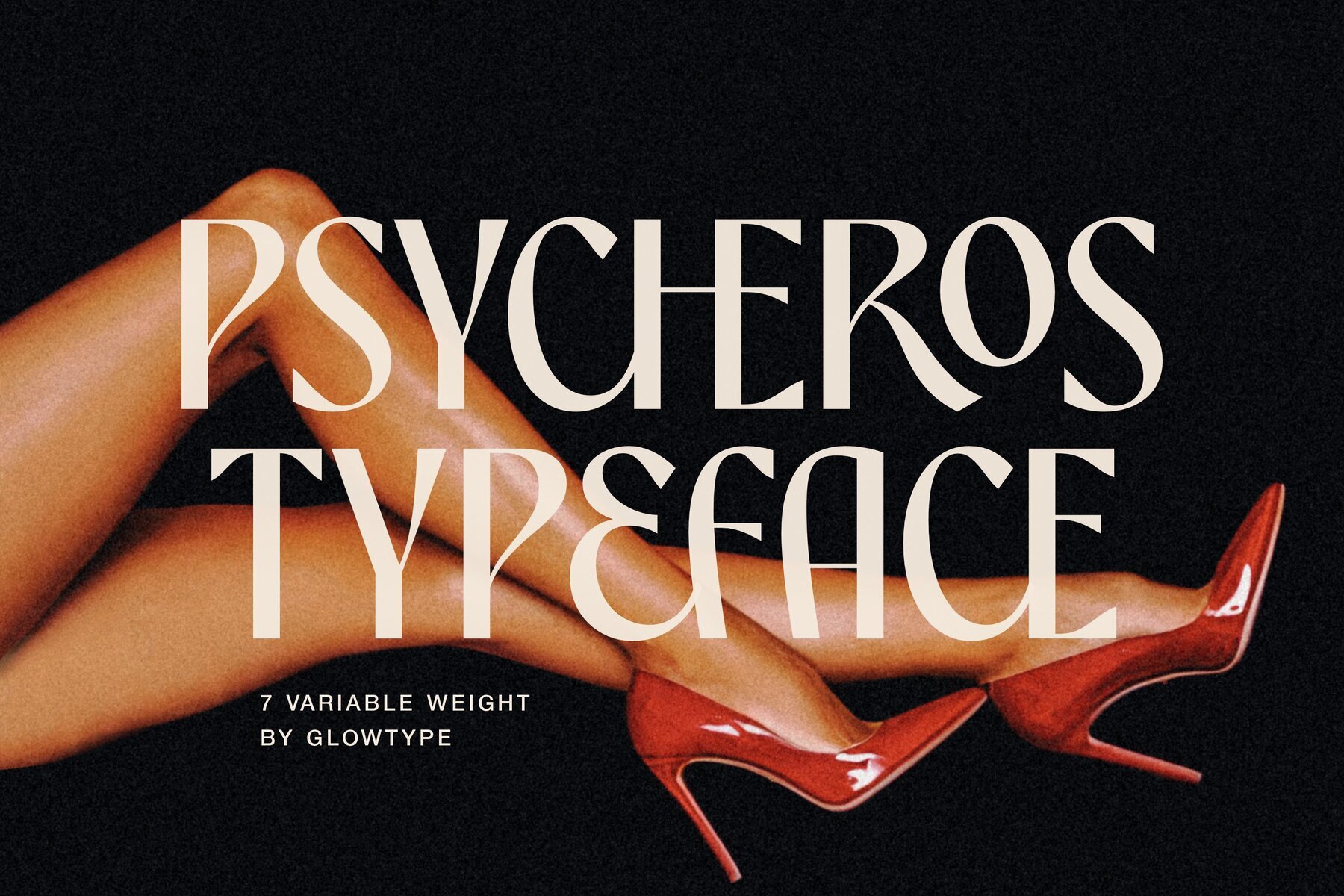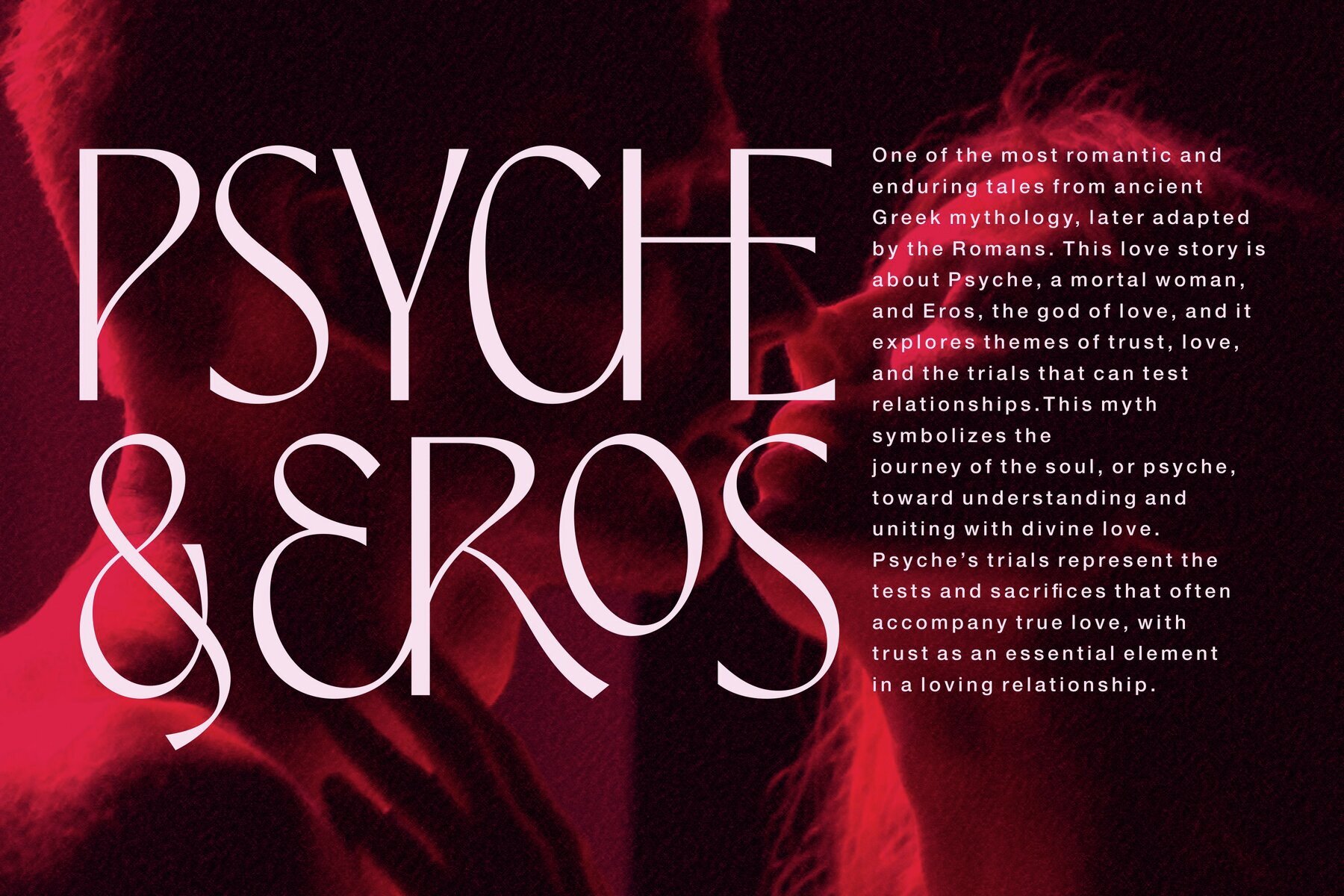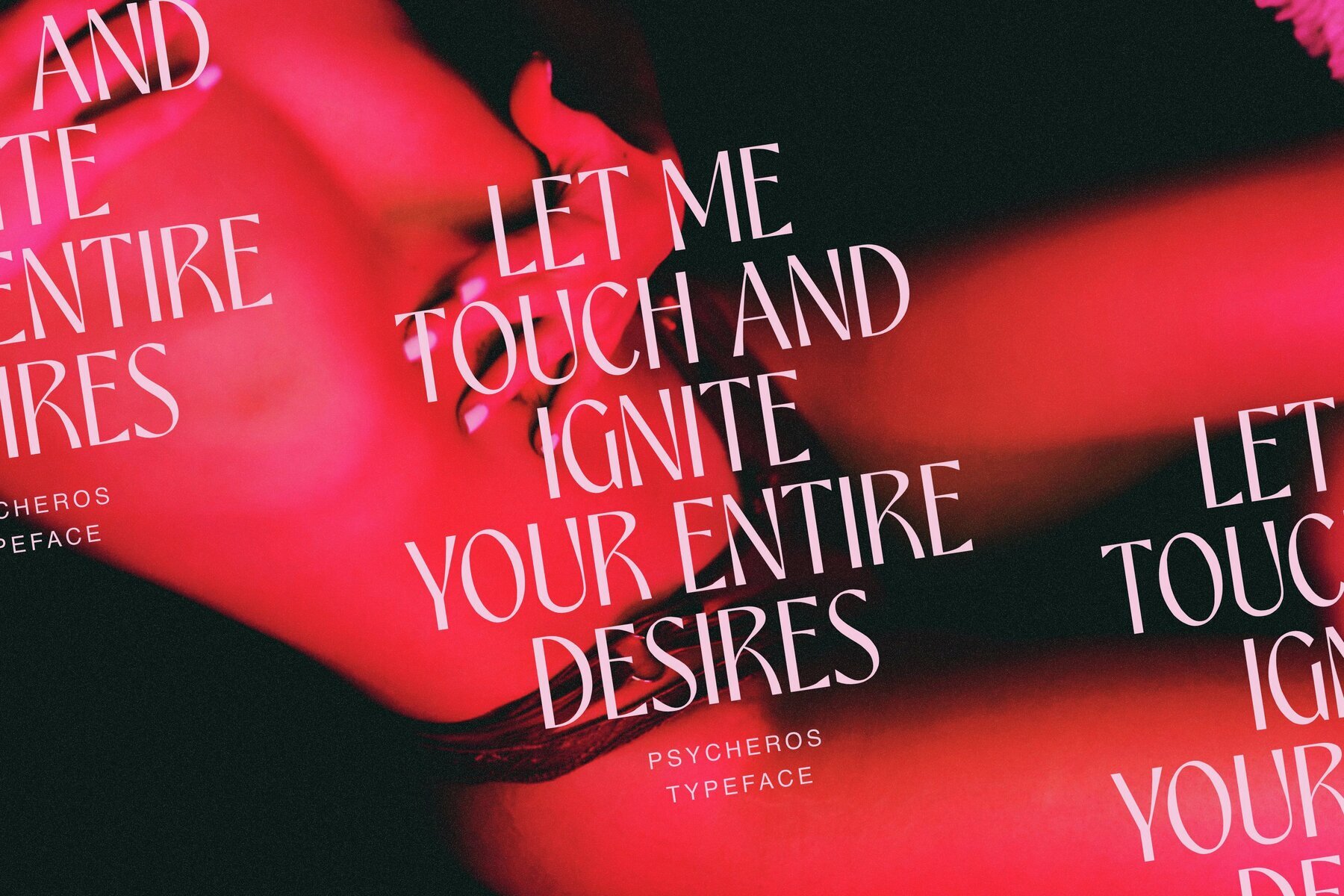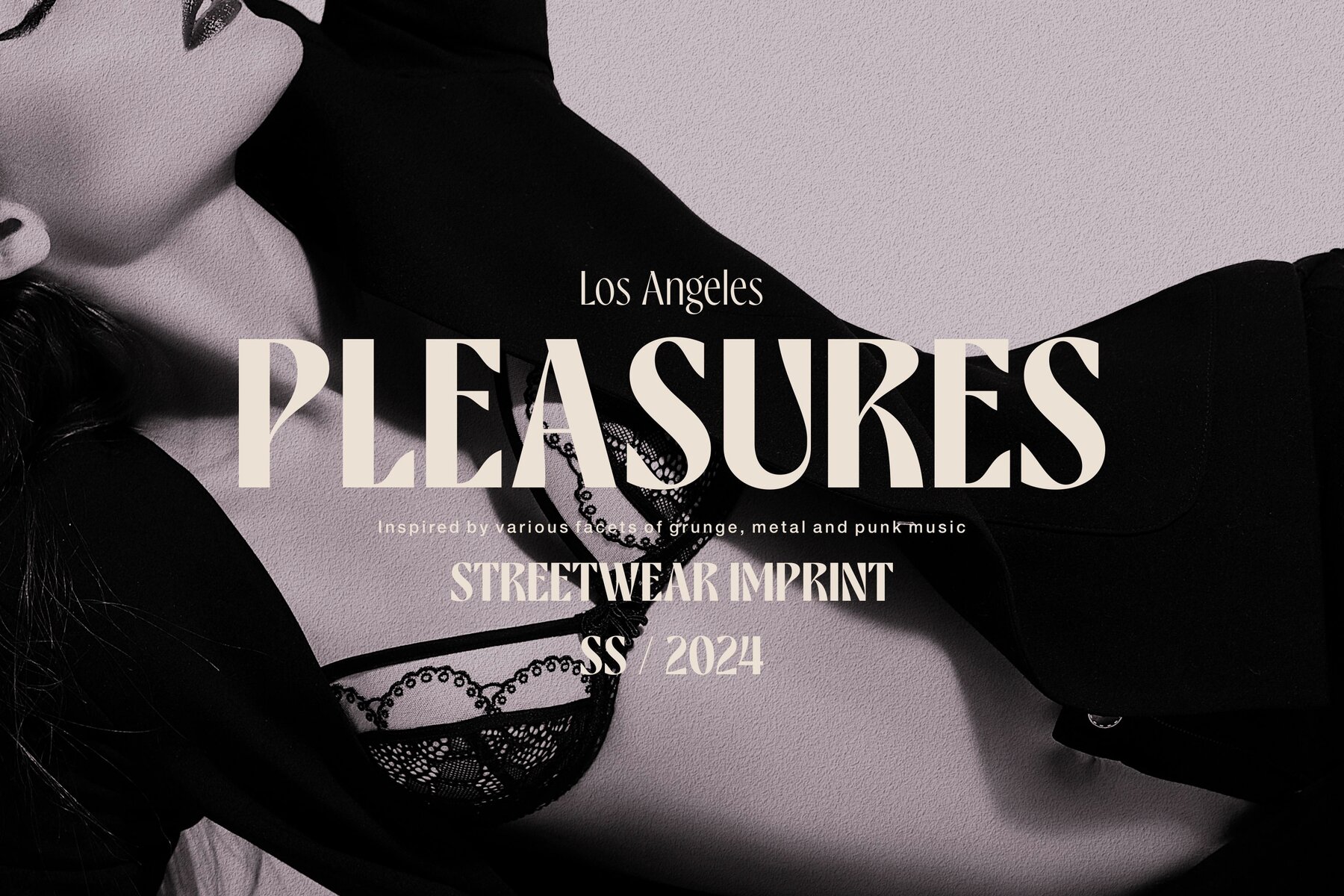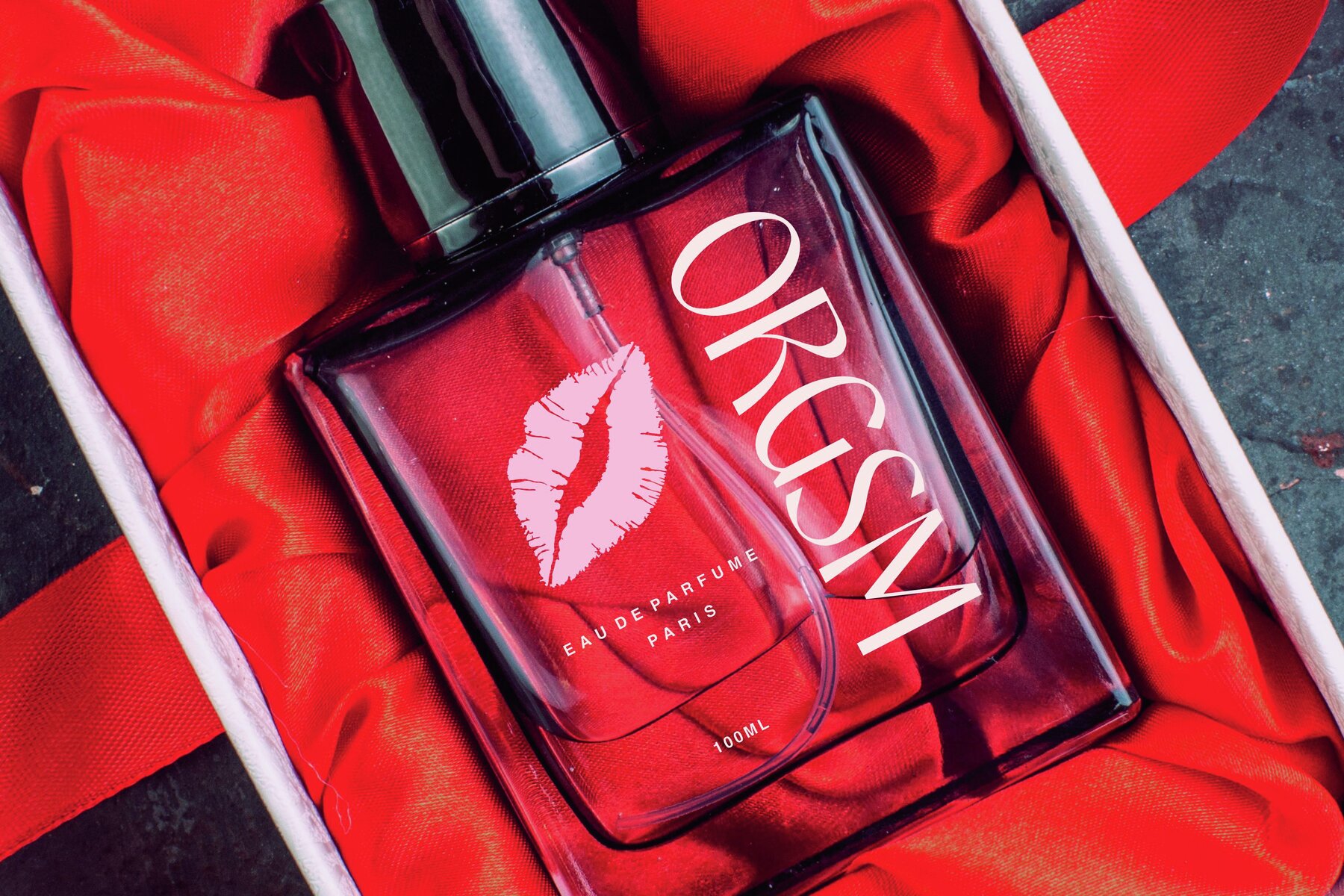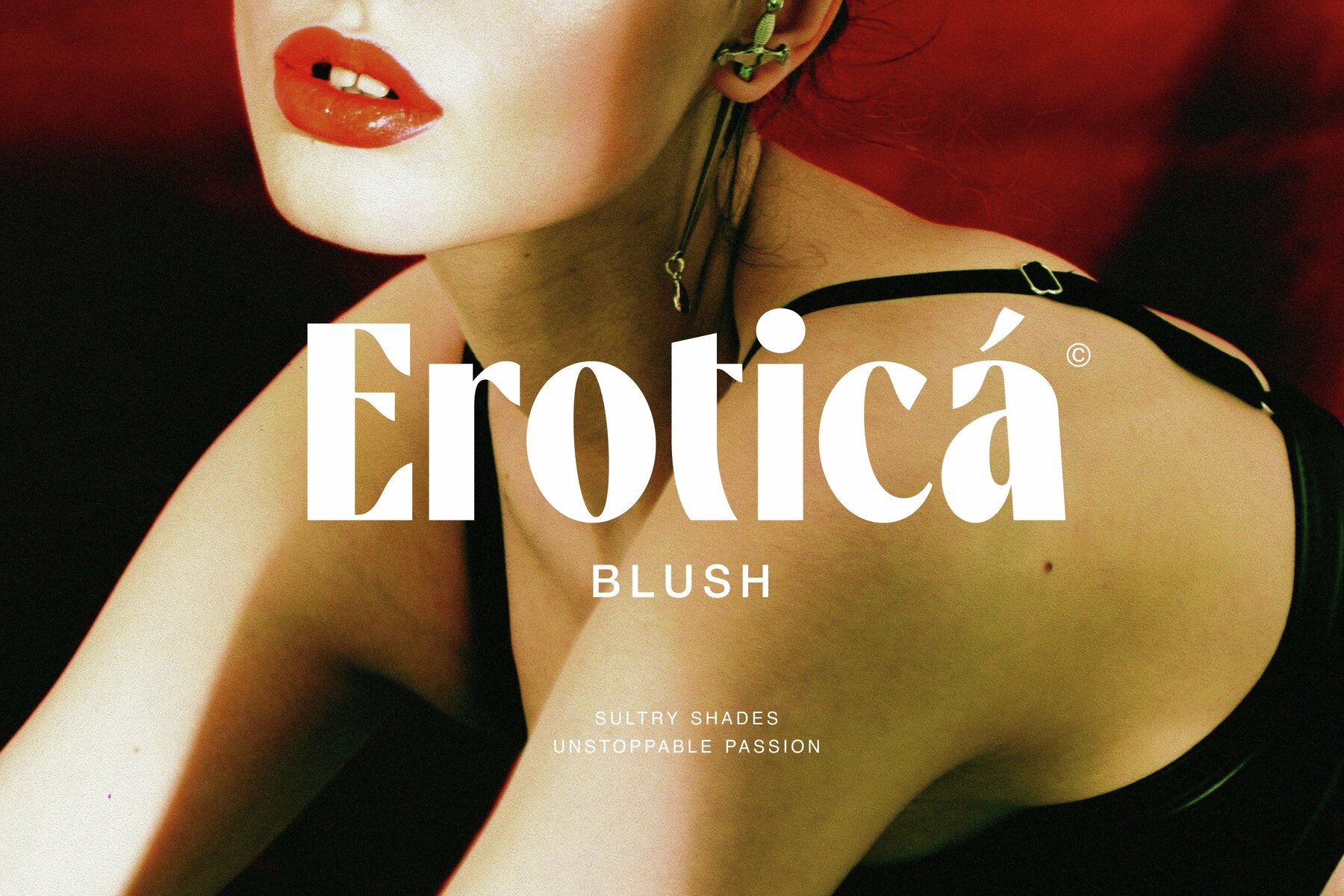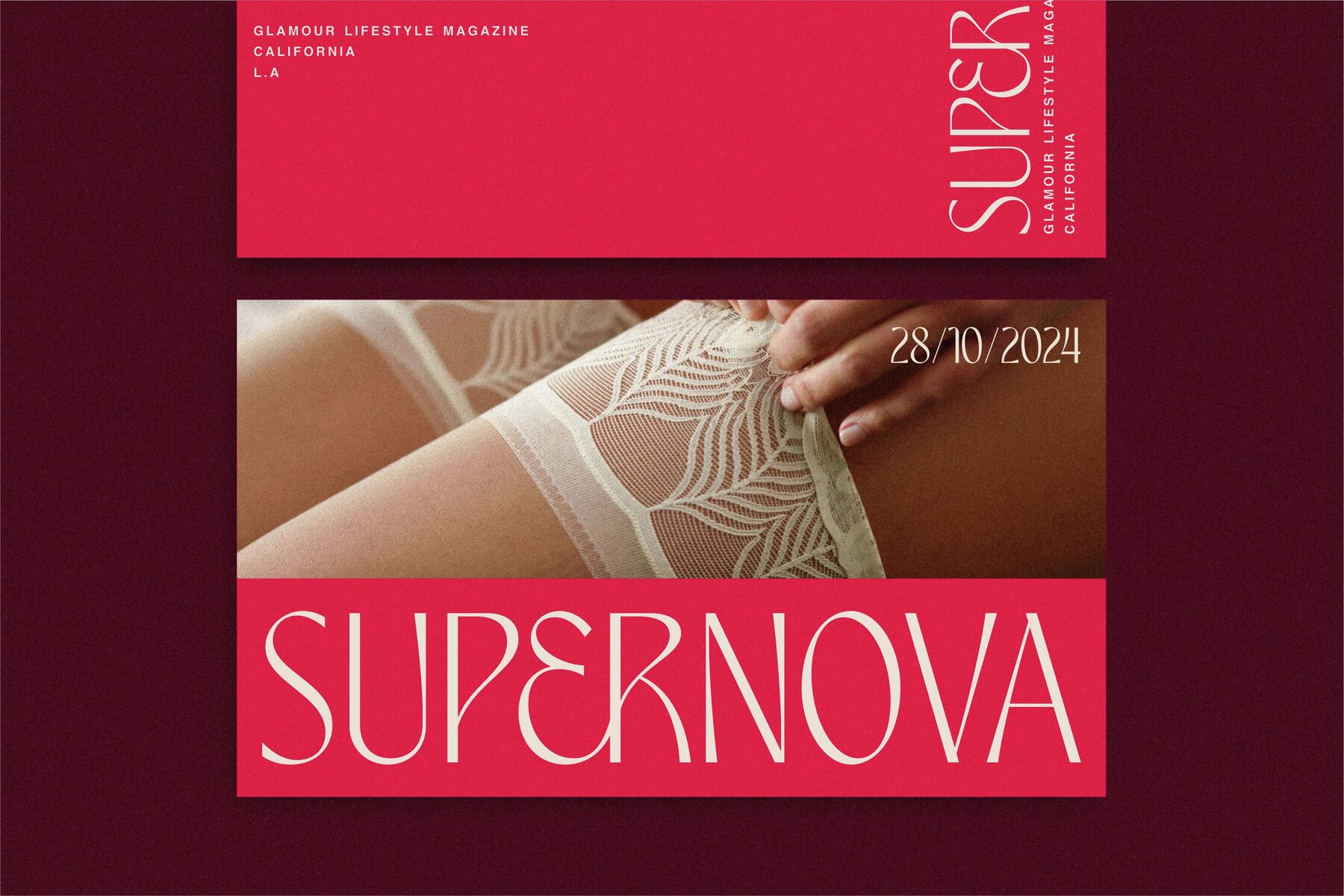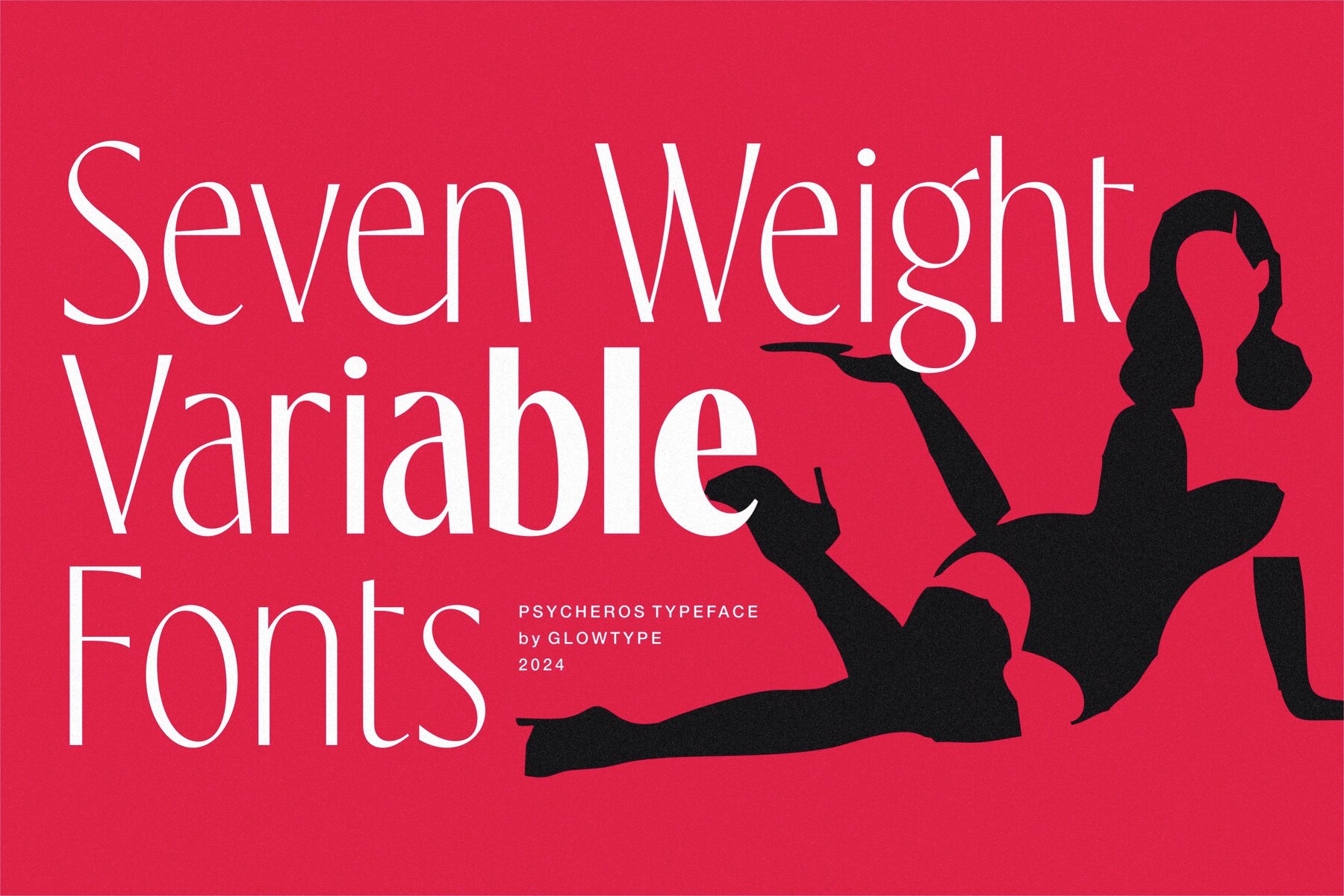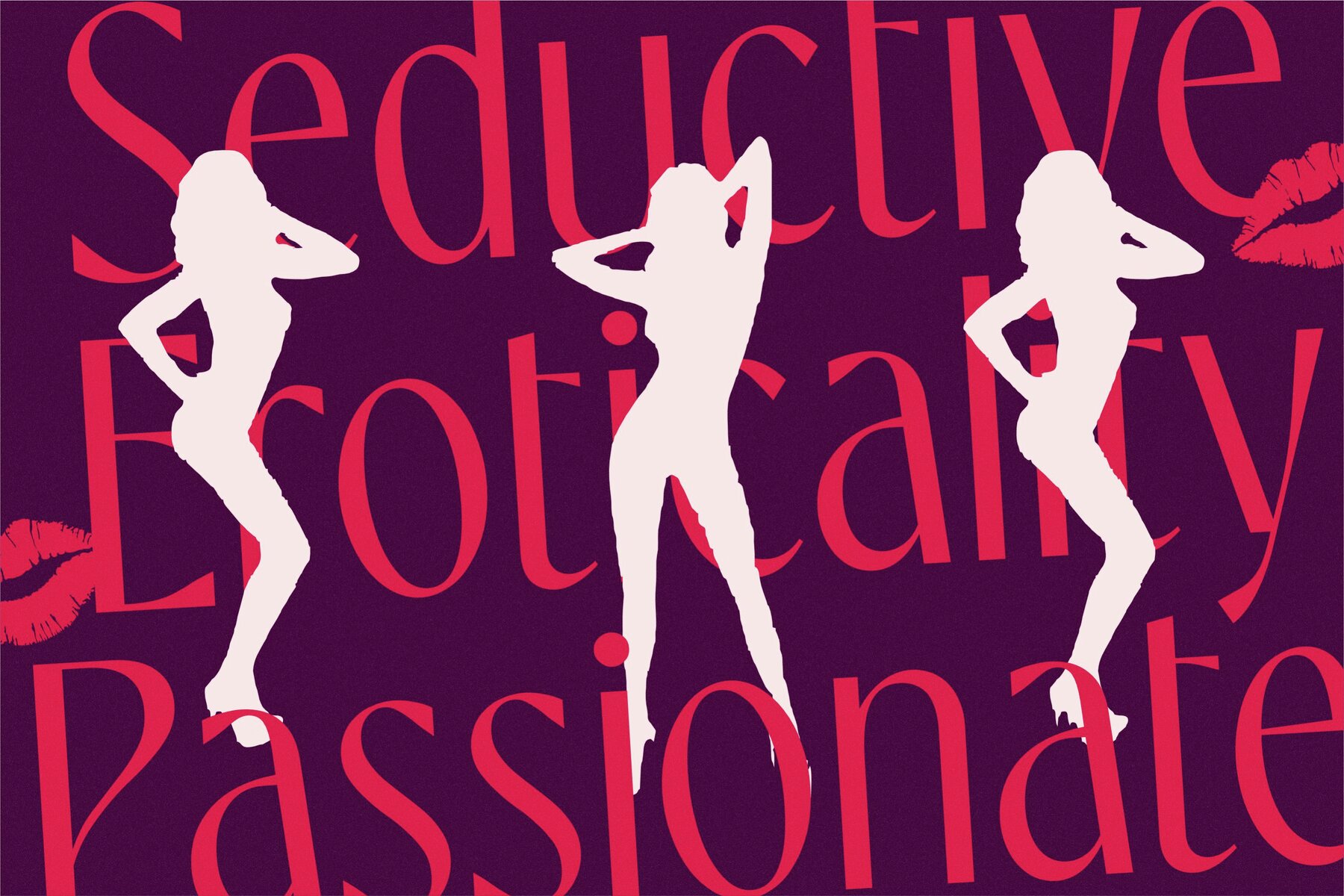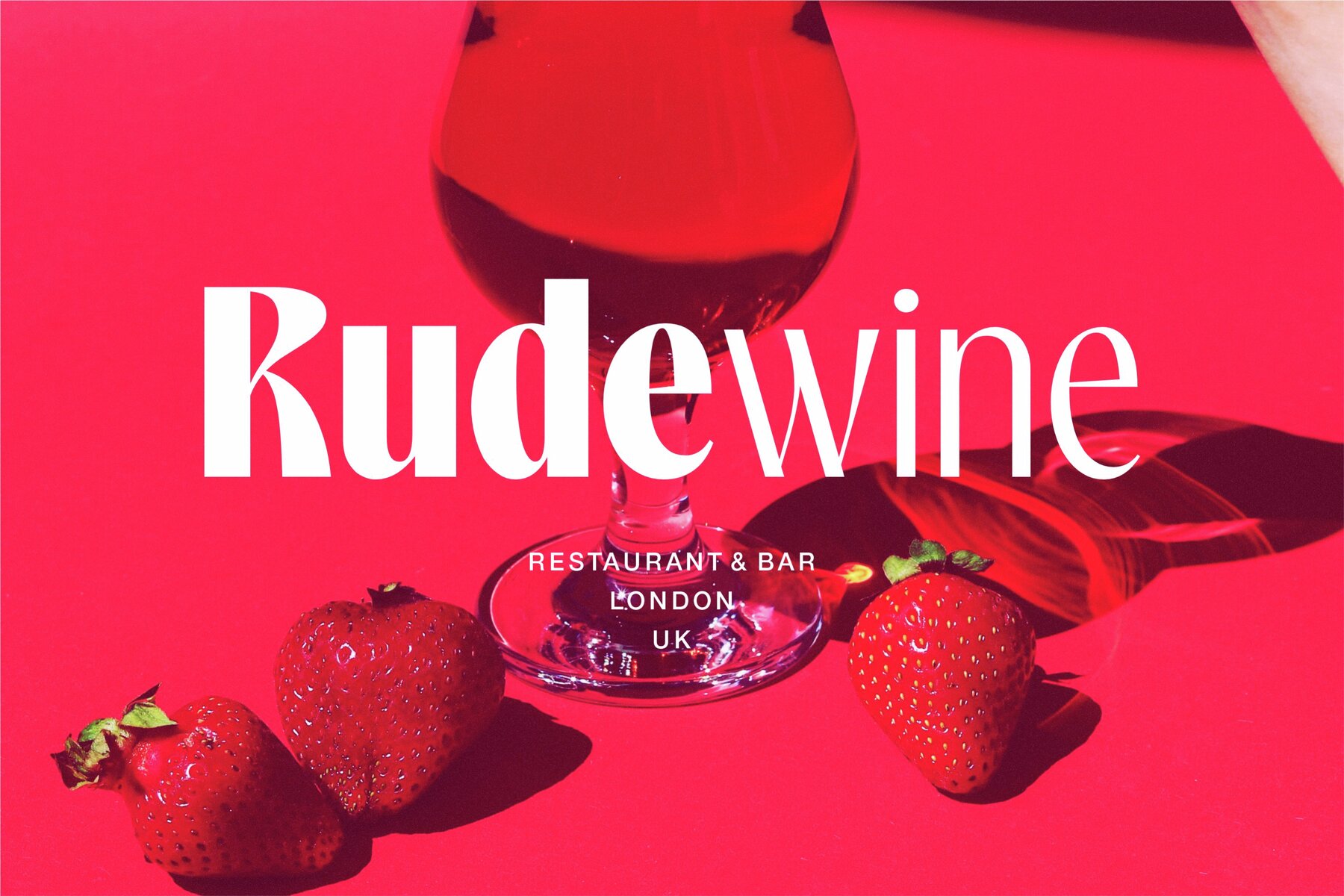
PSYCHEROS Font
Experience the allure of the PSYCHEROS typeface, a stunning creation inspired by the timeless myth of Psyche and Eros. Symbolizing love, desire, and soul, PSYCHEROS stands as a testament to elegance and bold presence in design. Its condensed body and tall x-height create a remarkable impact, making it perfect for projects requiring a refined touch of glamour. With its distinct style, PSYCHEROS infuses your projects with a sexy, luxurious charm, capturing a timeless blend of modern sensuality and sophistication.PSYCHEROS Typeface: Elegance in Design